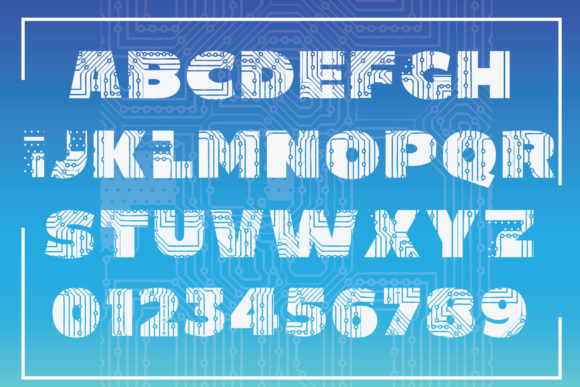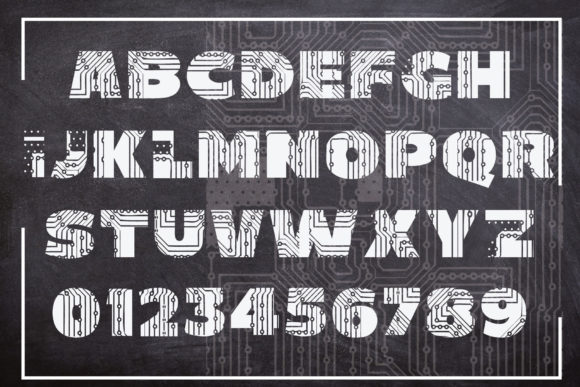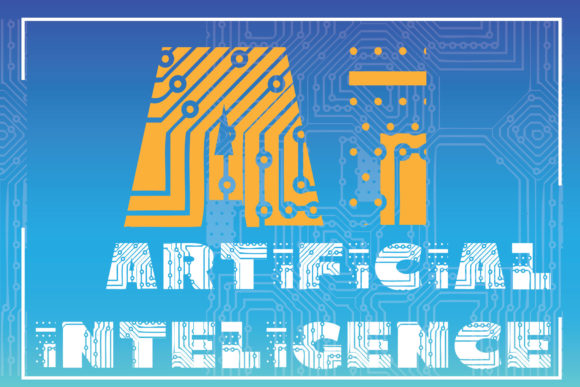
Introduction to Digimom Font Font
Fonts play a crucial role in design, and the Digimom Font font is a typeface that brings both character and versatility to any project. Whether you’re working on a branding project, a website, or a print design, the Digimom Font font offers a unique style that can elevate your work.
Digimom is an incredibly genuine and cool decorative font.
This original look will appeal to a wide range of crafty ideas, from letterheads and titles, to stationery .
Key Features of Digimom Font Font
Why Choose Digimom Font Font?
The Digimom Font font is more than just a typeface – it’s a design tool that helps you communicate your message with style and clarity. Its unique character set and versatile design make it suitable for a wide range of applications, from elegant invitations to bold headlines.
With its carefully crafted letterforms and balanced proportions, the Digimom Font font ensures readability and visual appeal across all mediums.
What makes Digimom Font font special?
The Digimom Font font stands out with its unique design, exceptional readability, and versatility across various design applications.